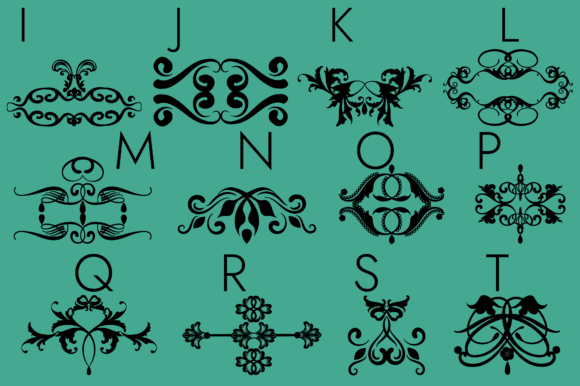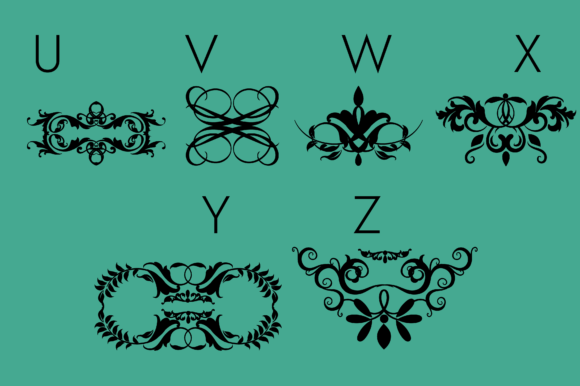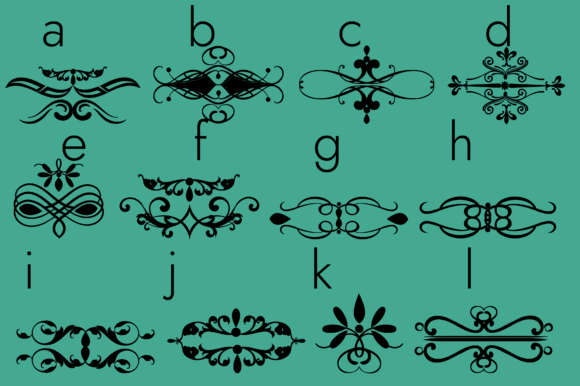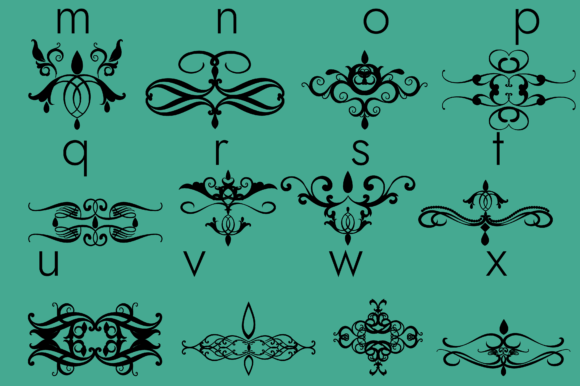
Flourishes, Dividers and Swirls Font
About Flourishes, Dividers and Swirls Font
Flourishes, Dividers, and Swirls is a stunning dingbats font that adds an elegant and decorative touch to any design. With its intricate and masterfully designed glyphs, this font is perfect for a wide range of projects, from invitations and stationery to logos and branding.
The beauty of Flourishes, Dividers, and Swirls lies in its versatility. It offers a variety of ornamental elements such as swirls, flourishes, and dividers that can be used to enhance your designs. Whether you’re creating wedding invitations, certificates, or decorative borders, this font provides a collection of exquisite glyphs that will elevate your projects to the highest level.
The ornate details and graceful curves of Flourishes, Dividers, and Swirls add a touch of sophistication and elegance to your designs. The font’s carefully crafted glyphs can be used as decorative accents, separators, or ornamental elements, giving your creations a sense of refinement and style. From vintage-inspired designs to modern compositions, this font seamlessly integrates into various aesthetics, making it a versatile choice for designers.
Flourishes, Dividers, and Swirls also offers a wide pool of options for customization. You can experiment with different combinations, sizes, and orientations of the glyphs to create unique and personalized designs. Whether you want to create a decorative frame, add a flourish to a typography layout, or create intricate patterns, this font provides the tools you need to bring your creative ideas to life.
Additionally, Flourishes, Dividers, and Swirls can be used in both digital and print formats, making it suitable for a wide range of applications. Its high level of detail ensures legibility and visual impact, whether it’s used on a website, in a digital presentation, or in printed materials.
By adding Flourishes, Dividers, and Swirls to your font collection, you gain access to a versatile and visually captivating resource that will enhance your designs and impress your audience. Let this font become your go-to choice for adding a touch of elegance and sophistication to your creative projects.
So, unlock the full potential of your designs with Flourishes, Dividers, and Swirls. Let its beautiful and intricate glyphs bring a sense of refinement and style to your creations. From invitations and branding materials to decorative elements and more, this font is a true favorite that will elevate each of your creative ideas to the highest level.